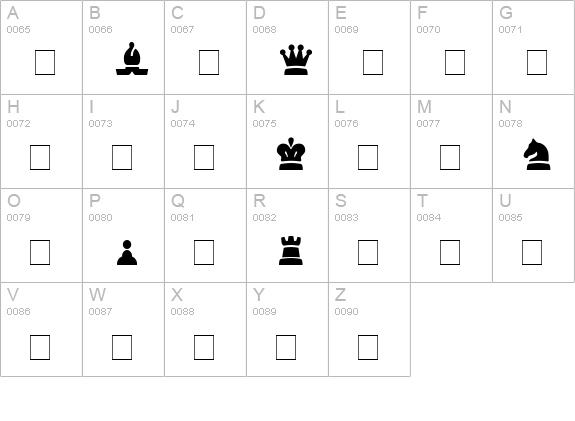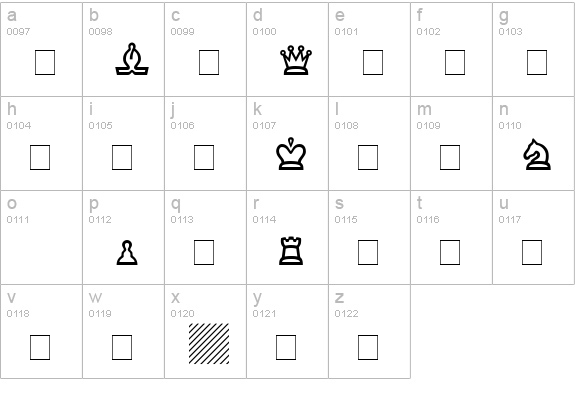
Chess SSi font is a classic and elegant typeface that is perfect for conveying a sense of sophistication and intelligence. With its clean lines and stylish design, this font exudes a timeless charm that is sure to make any project stand out. Whether you are working on a logo, branding, or any other design project, Chess SSi font is a versatile choice that will add a touch of class to your work. The best part? Chess SSi font is completely free to download at FontsMarket.com. This means that you can easily access this high-quality font without breaking the bank. So go ahead and elevate your designs with the timeless appeal of Chess SSi font, available for free download now.